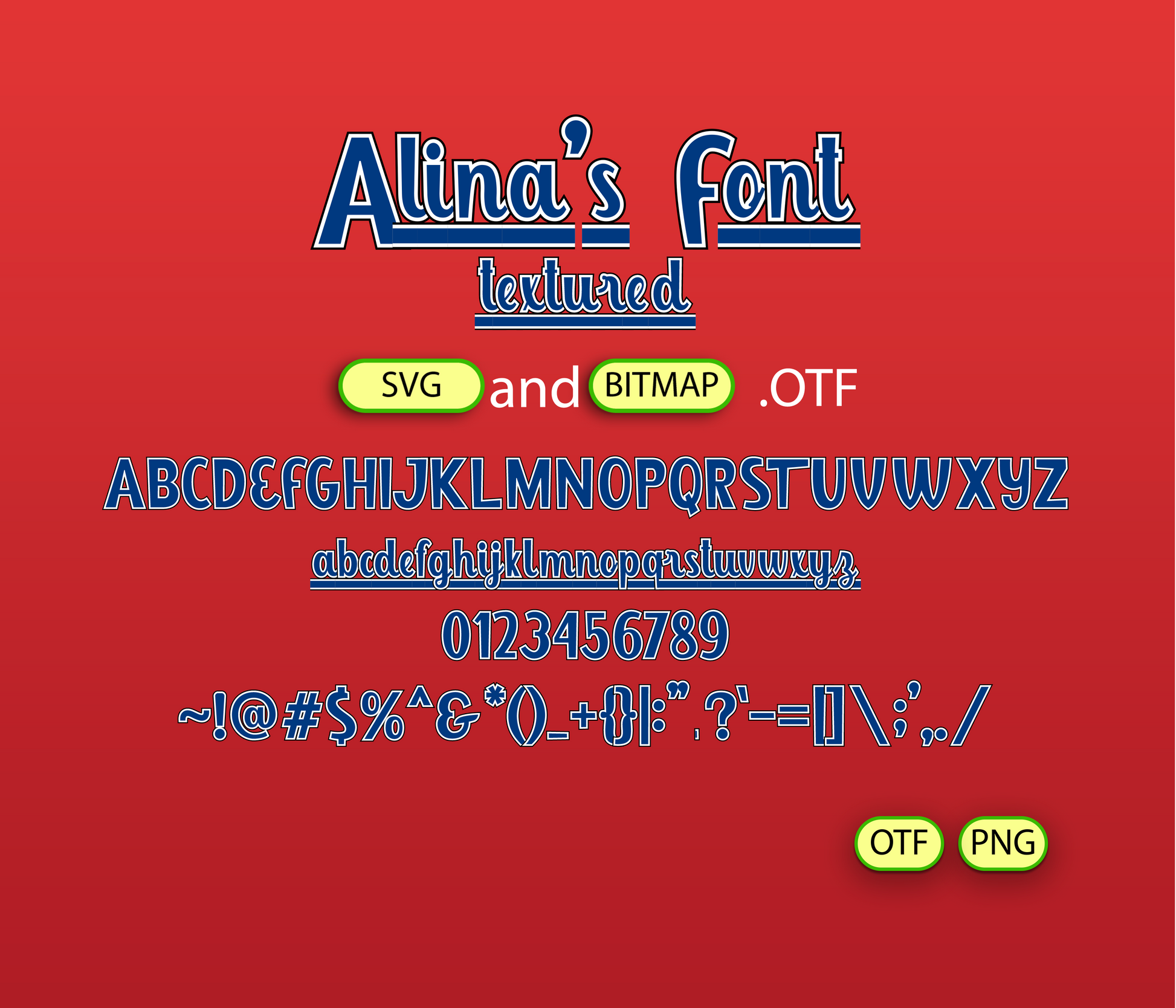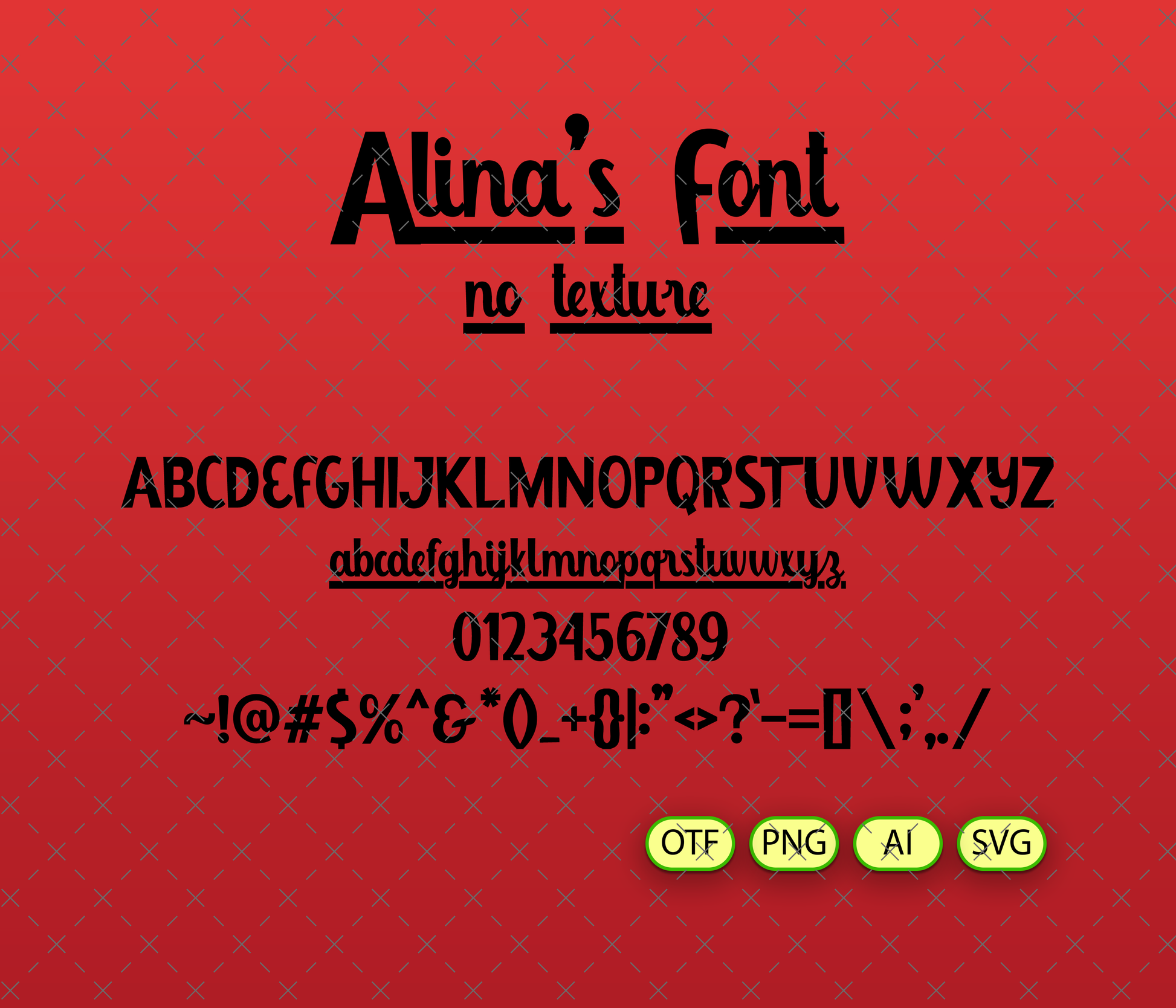
Championship Hoops Crew Font Textured
Step into the exhilarating world of slam dunk action with our Championship Hoops Crew Font Textured, capturing the essence of hardwood battles and cartoon athletic clashes. Perfect for sporting event fans, celebration coordinators, digital producers, and design specialists, this font brings the commanding, spirited character of animated court rivalry tales to your projects. Create attention-grabbing invitations, branded goods, or web content with the pulse-pounding presence of team showdown narratives.
Bold Typography for Athletic Design & Competitive Projects
Our Championship Hoops Crew Font Textured features prominent, stylized letterforms with sporty surface patterns reflecting the world of skilled athletes and gymnasium arena environments.
- Event Promotions: Create attention-grabbing invitations, signage, and promotional materials for sporting celebrations, fan meetups, and social gatherings that capture the spirit of hoops entertainment
- Merchandise Design: Perfect for apparel, wall prints, adhesive graphics, and collectibles that showcase the commanding aesthetic of athletic rivalry themes
- Digital Media: Enhance internet sites, content platforms, and social channels with spirited header designs and imagery that express the thrill of court battles
- Creative Content: Add signature flair to fan illustrations, player artwork, and imaginative projects inspired by cartoon sporting chronicles
- Personal Projects: Bring competitive vitality to memory albums, handmade crafts, and living space decorations inspired by the world of determined athlete personalities
Our font pays tribute to the world of cartoon sporting stories and athletic film culture, empowering your projects with its commanding and spirited character. Whether crafting supporter materials, designing themed products, or adding a competitive touch to personal projects, this font communicates the energetic essence of team rivalry entertainment. Ready to inject hardwood excitement into your creations? This font is your key to attention-grabbing, impactful design.